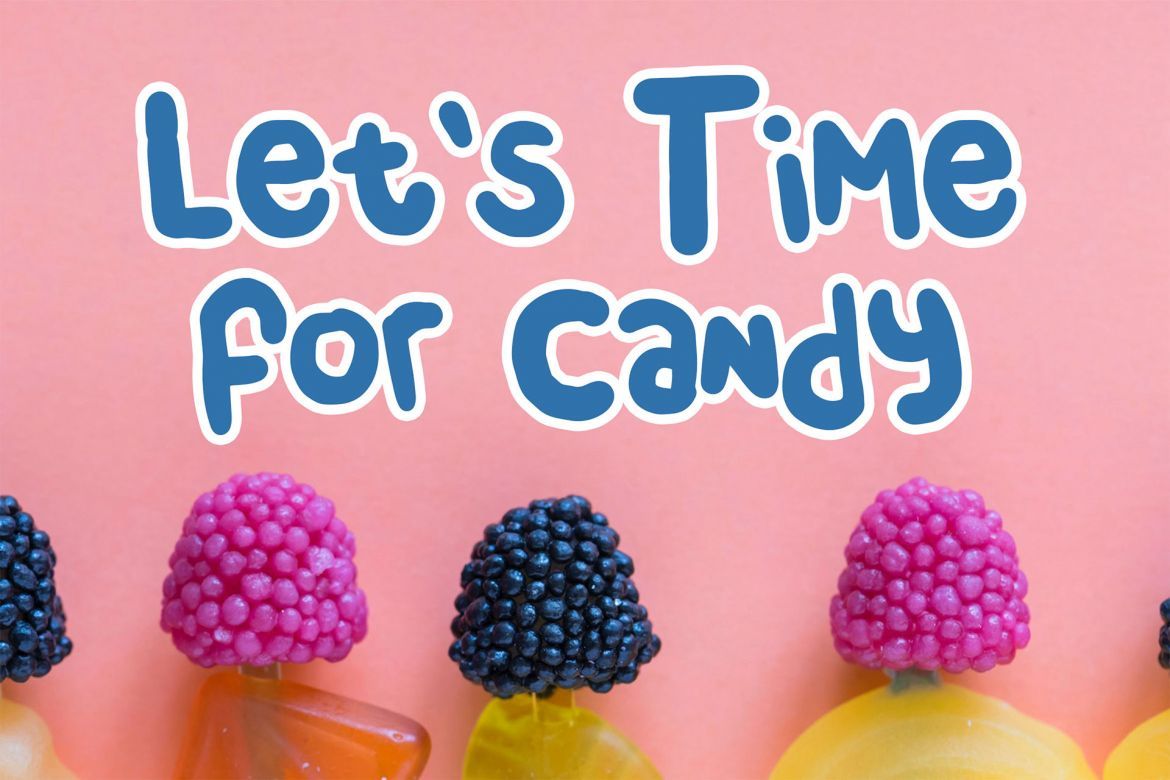
Chendolle – Fun Handwritten Font
Introducing – Chendolle – Handwritten font is a bold display and fancy handwritten font script. This look funny and cute font is stylish and versatile so you can use in a plethora of designs in both digital and print applications.
Chendolle is a bold display font, this font looks funny, cute, kids, cartoon, playful, catchy and easy to use.
Chendolle is the best choice for your professional design projects, including signature, watermark on photography, quotes, wedding, fashion, letter, invitation, business card, logo, branding, magazines, social media, advertisements, product designs, and much other design projects.
• the perfect font choice for powerful projects – watermarks, signatures, photography, logos, business cards, quotes, album covers.